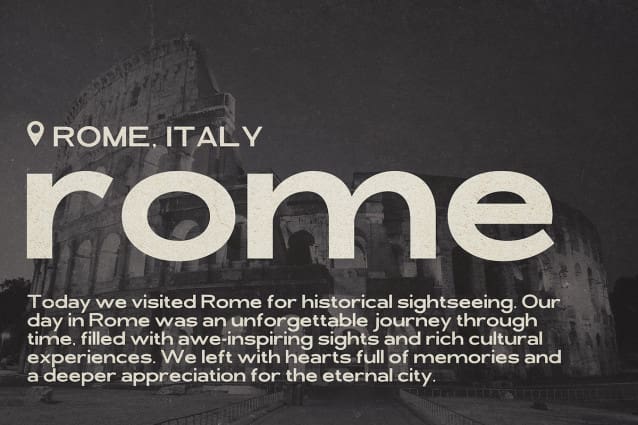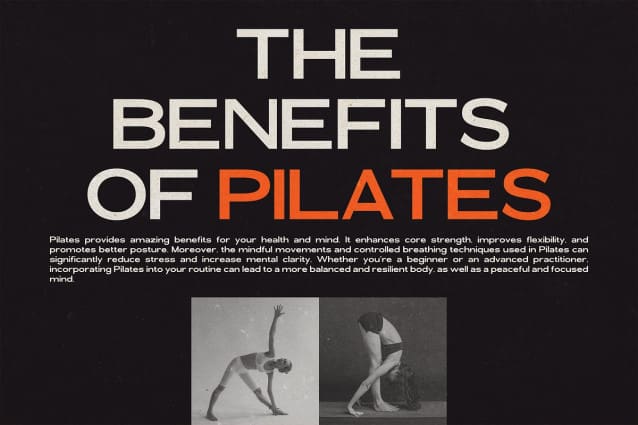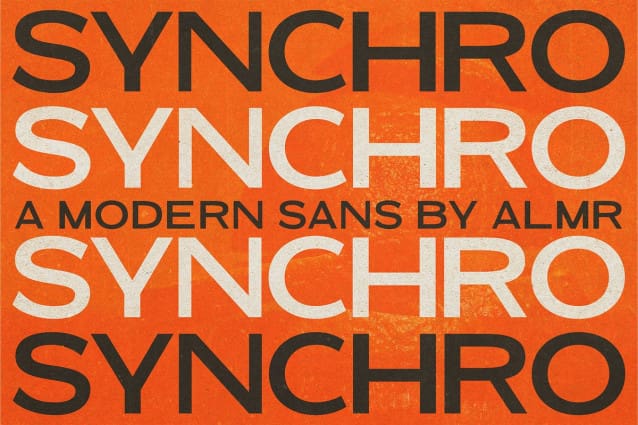
Synchro Font
Synchro Font – Modern Bold Sans Serif sans serif font with elegant style this is perfect for branding, logos, invitation, magazines, product packaging and more.